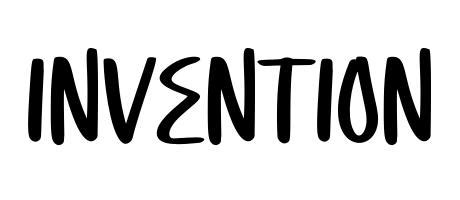
This font features a bold, handwritten style with smooth, rounded edges and a playful aesthetic. Every font is free to download! The invention font free download is an incredibly innovative and contemporary typeface, making it an excellent choice for designs that aim to convey.
Invention font family designed by irpan maulana has a total of 1 different styles. Get the invention font free! This font features a bold, handwritten style with smooth, rounded edges and a playful aesthetic. The characters are slightly slanted,.